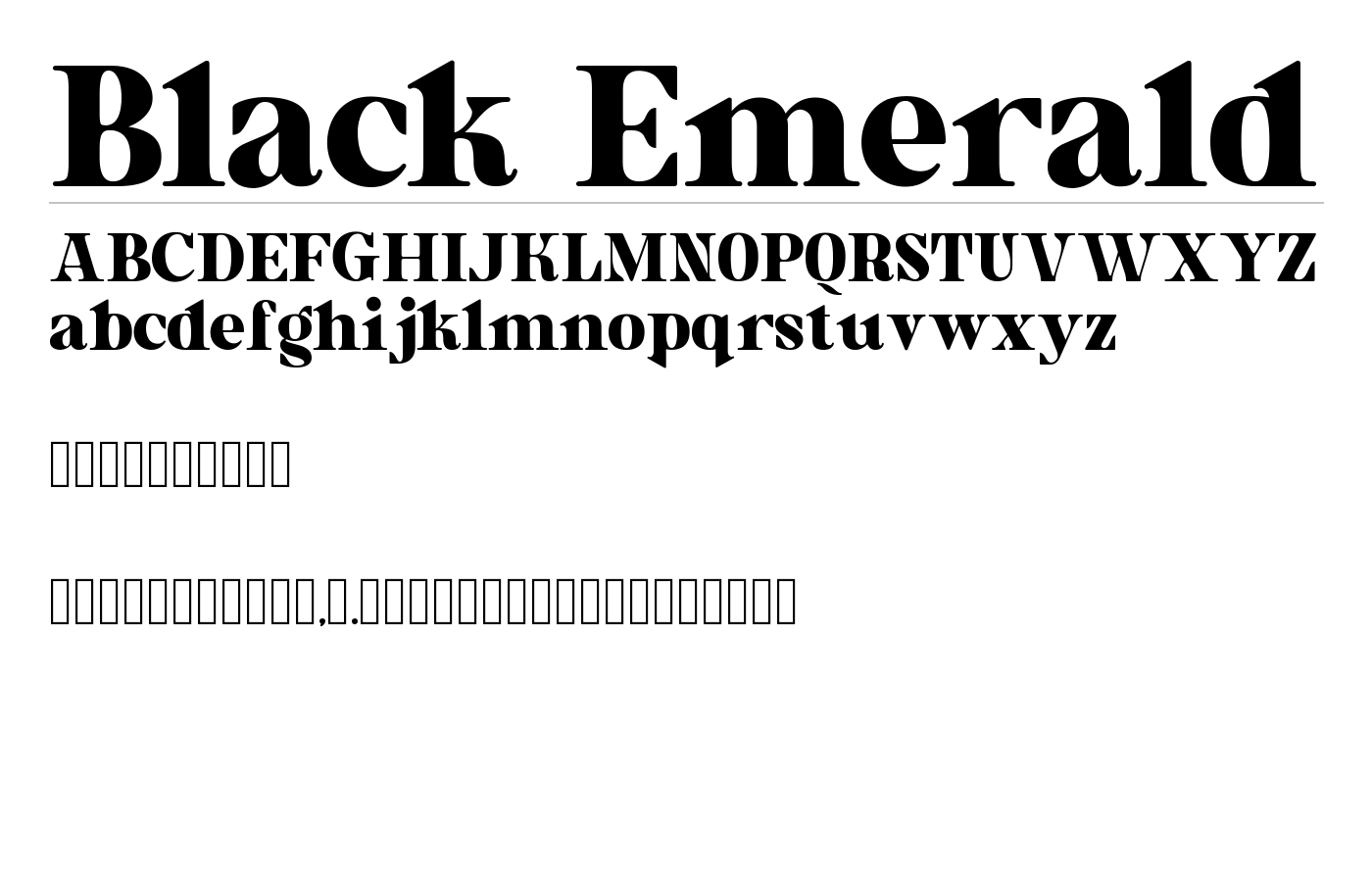
Black Emerald is a bold serif font with a sturdy, traditional feel, featuring high contrast between thick and thin strokes and sharply bracketed serifs. Its classic structure and strong presence make it ideal for headlines, editorial design, and branding that seeks to convey confidence and elegance. This font works particularly well in luxury packaging, fashion, and sophisticated print layouts where impact and readability are key.
Black Emerald Font
About Black Emerald Font